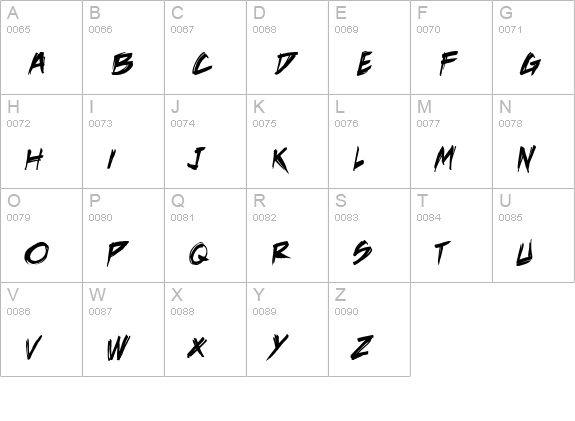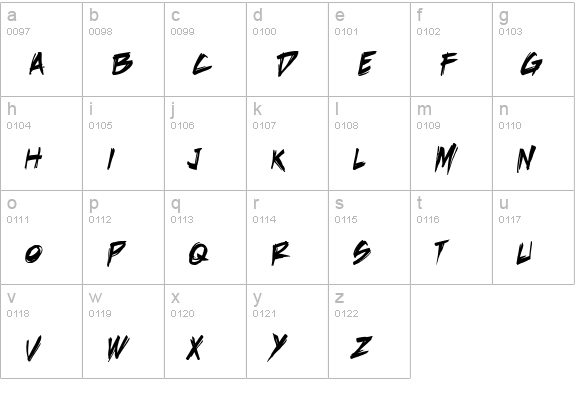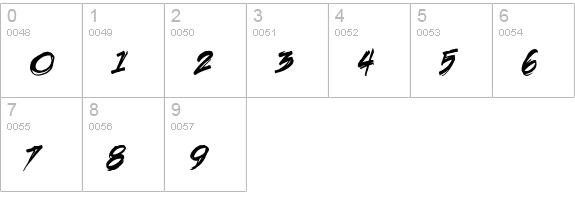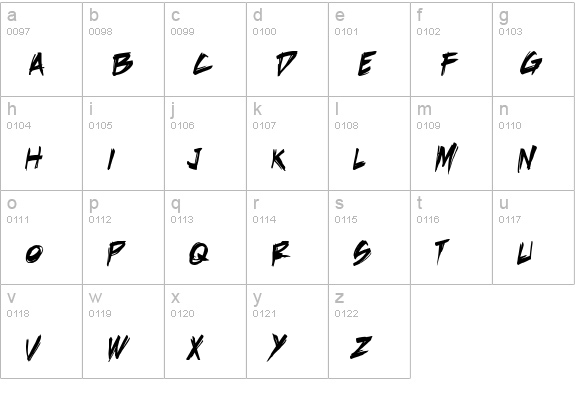
DeathRattle BB Font Details
Introducing DeathRattle BB font, a bold and edgy typeface designed to make a powerful statement in your creative projects. With its striking appearance and unique character, DeathRattle BB font is perfect for adding a touch of drama and intensity to your designs. This font features intricate details and a distinct style that will capture the attention of your audience. Best of all, DeathRattle BB font is available for free download at FontsMarket.com, making it easily accessible for all designers and creatives looking to elevate their work. Whether you're working on a poster, logo, or branding project, this font will bring a dynamic and eye-catching element to your designs. Don't miss out on the opportunity to enhance your designs with the captivating DeathRattle BB font - download it for free today!